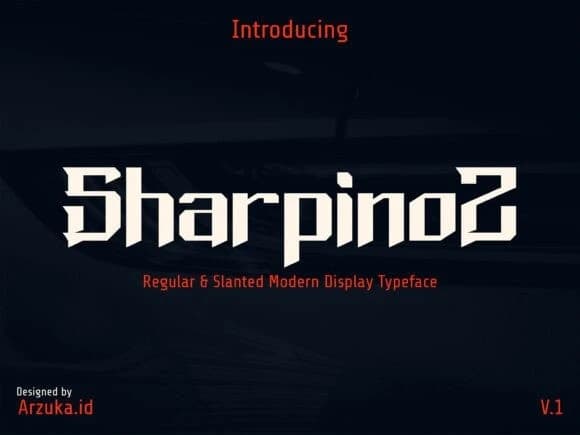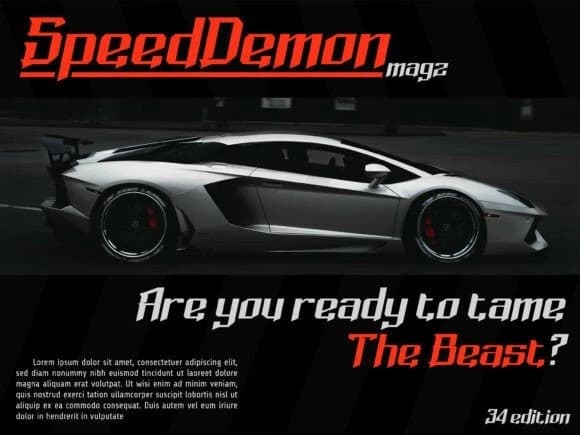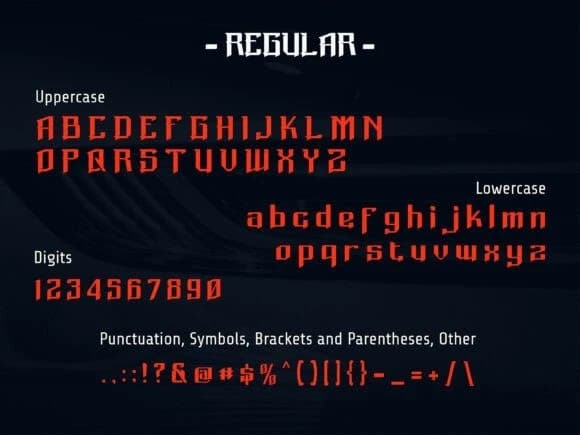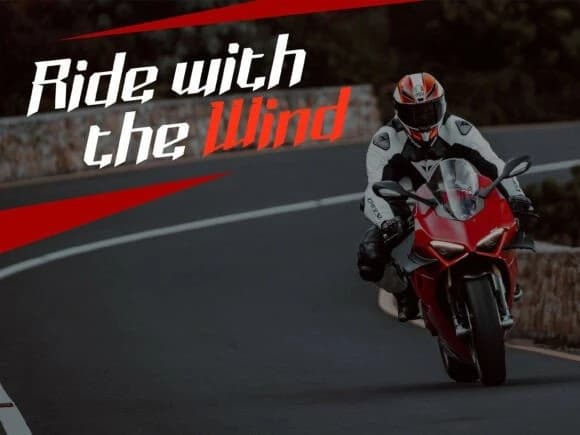
Sharpinoz Font
Sharpinoz Font is a bold and aggressive display typeface crafted for high-energy visuals. Designed with sharp angles, dynamic strokes, and a fast-forward slanted style, Sharpinoz delivers the perfect racing attitude for any project that demands power, movement, and adrenaline.